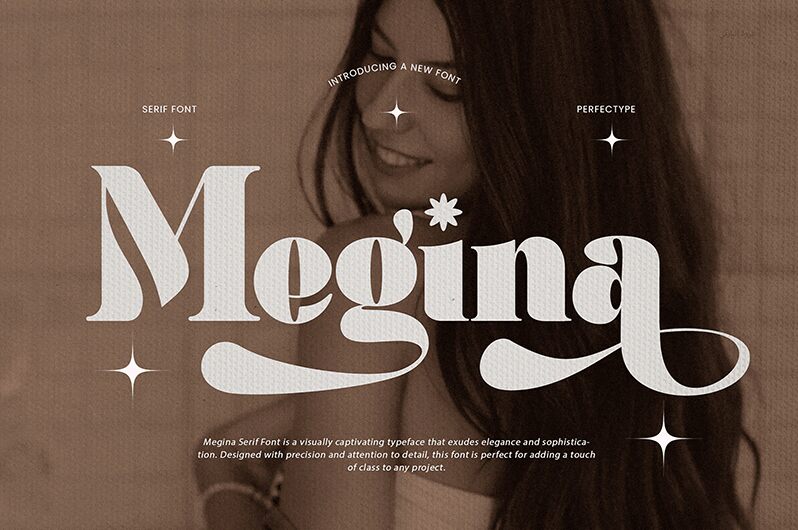
Megina font, designed by Setyo Wati, is a retro-styled font that captures the imagination with its aristocratic elegance and sophisticated design. Meant to bring back the charm of the classic era, it subtly infuses a modern flair while maintaining a refined and traditional appearance. Expressive and ornate, Megina is nostalgic yet versatile and graceful, making it a unique addition to any creative project.
The font finds its use in various design projects such as posters, invitations, book covers, labels, packaging design, logos, branding, headlines, web design, and social media content. Its ornate and classic appeal ensures that it effortlessly elevates any personal project it’s applied to.